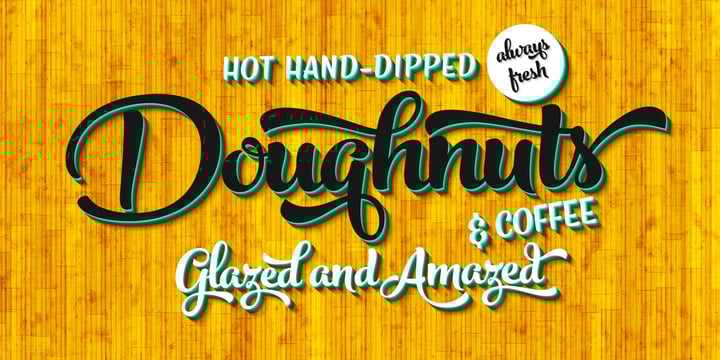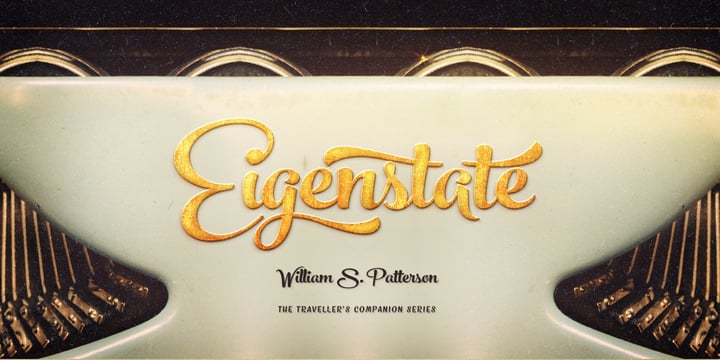
Peaches And Cream™
by Fenotype
About Peaches And Cream Font Family
Peaches and Cream is a bold brush style script family of three weights, ornament set and an all caps font. Peaches and Cream is equipped with plenty of OpenType features: To activate the alternates click on Swash, Stylistic or Titling Alternates in any OpenType savvy program or manually select the characters from Glyph Palette. Combine Peaches and Cream with Peaches and Cream Ornaments and Peaches and Cream Caps to complete your designs. Peaches and Cream is an effective font for creating ambitious headlines, logos & posters with a custom-made feeling. For the best price purchase the complete Peaches and Cream.
Designers: Emil Karl Bertell
About Fenotype
Emil Bertell has done it all. Having published his first font files at 16, he was considered to be an international free-font hero while still in his teens. He went on to attend design college, drop out, and become a well-known graphic designer and illustrator. Now one of the most successful type designers from the Nordic countries on MyFonts, the Finland-based designer said in his Creative Characters interview that he’s “had an obsession with visual culture from the beginning.” Before turning his attention to type design full-time, Emil had a very successful career as an award-winning illustrator. “Illustration became my main livelihood,” he said. “I drew painstaking pencil illustrations for magazines, advertising, stamps, etc. I often designed my own fonts for festivals and hand-drew the lettering posters; I also did a few pencil illustrations based on lettershapes, and that got out of hand, so I had to do a lot more of them.” In 2012 he finally made the switch and committed all of his time to type design. Emil first saw success with his Billboard typeface. “It became my first Rising Star on MyFonts and made me realize that I could actually make a living by designing fonts,” he said. “I realized that there’s actually a market out there that I could become a part of.” Throughout the rest of that year he began to see even more success. It began in January, when his font, Mishka, was featured in our Most Popular Fonts of 2011 list. He went on to find a way to bookend the year and was listed among the Most Popular Fonts of 2012 with his Mercury Script design. Since then, his foundry’s success has continued on with best sellers like Voyage and The Carpenter. Fans of the foundry have a lot to look forward to in the near future. Emil will continue to produce beautiful scripts (some coming soon to MyFonts!) and has plans to expand his business.